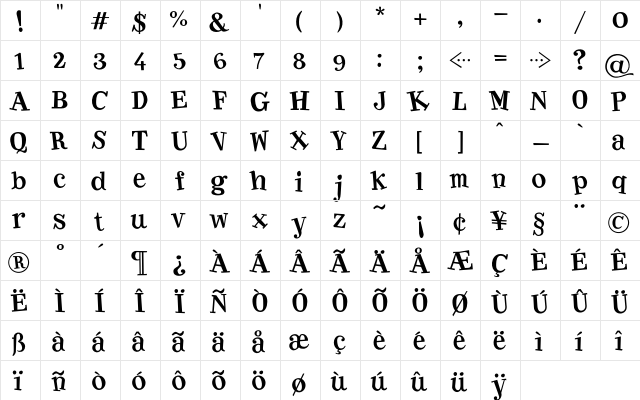
Bolbody Semibold
Design Context for Bolbody Typeface
Bolbody takes a measured approach to typography — its balanced proportions and neutral character make it a reliable workhorse for both digital and print work. Its bold stroke weight gives it real presence on the page.